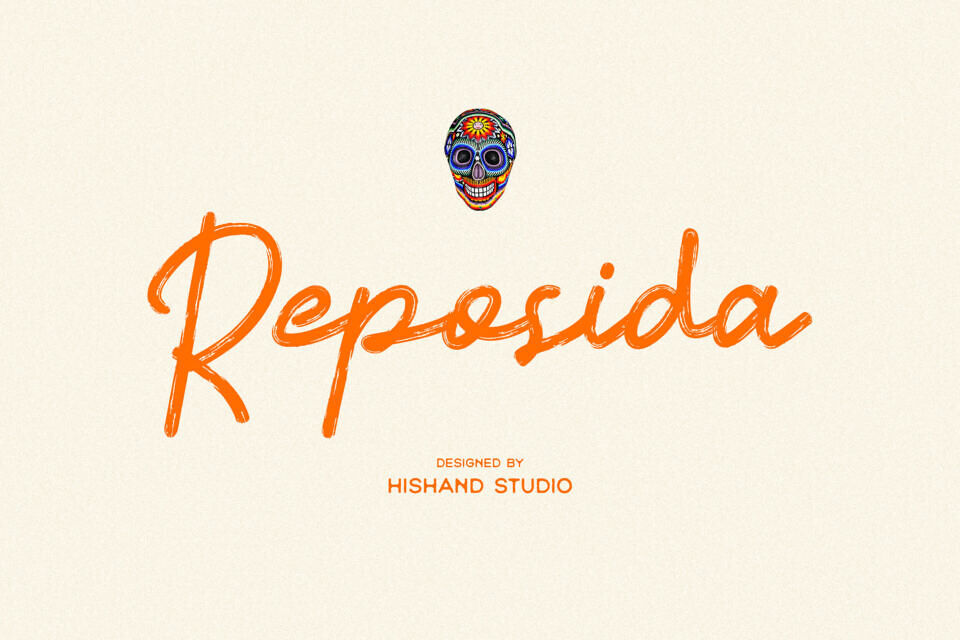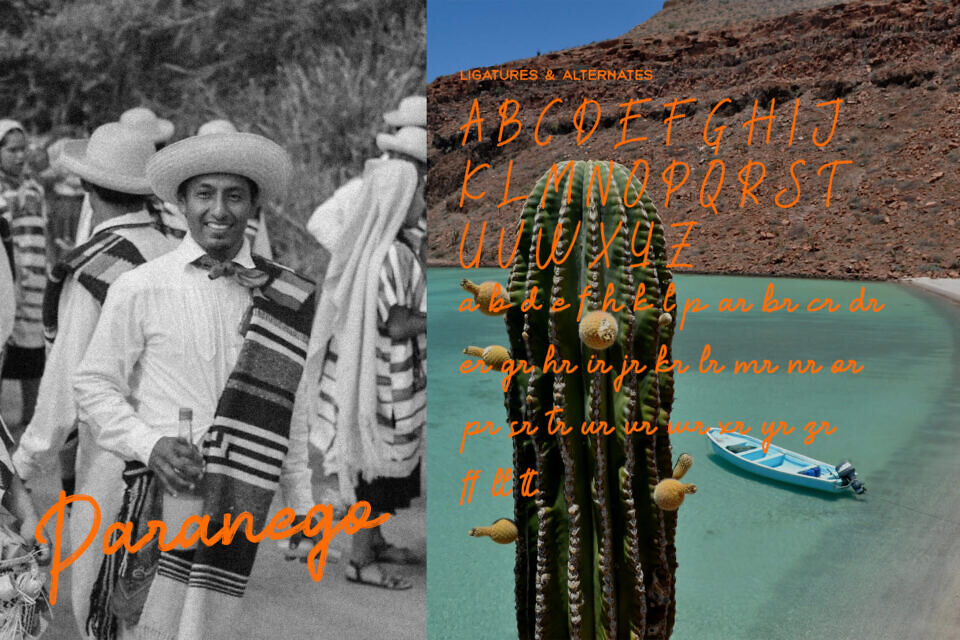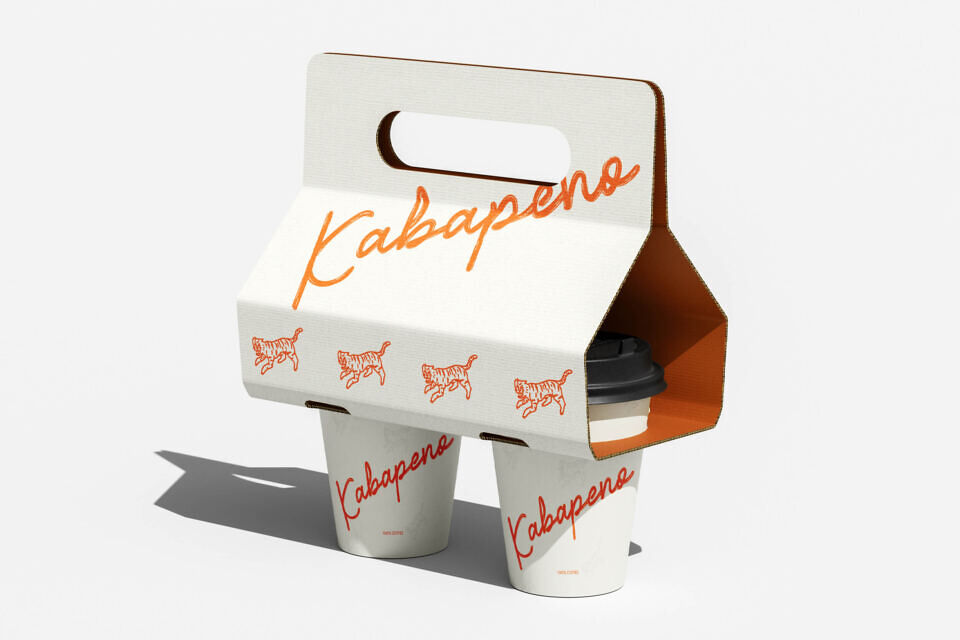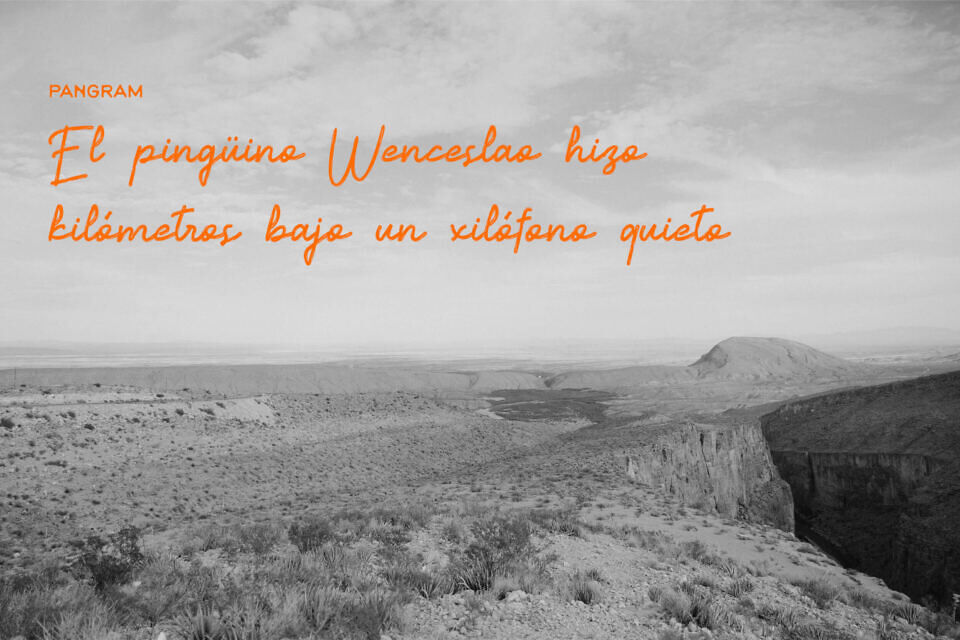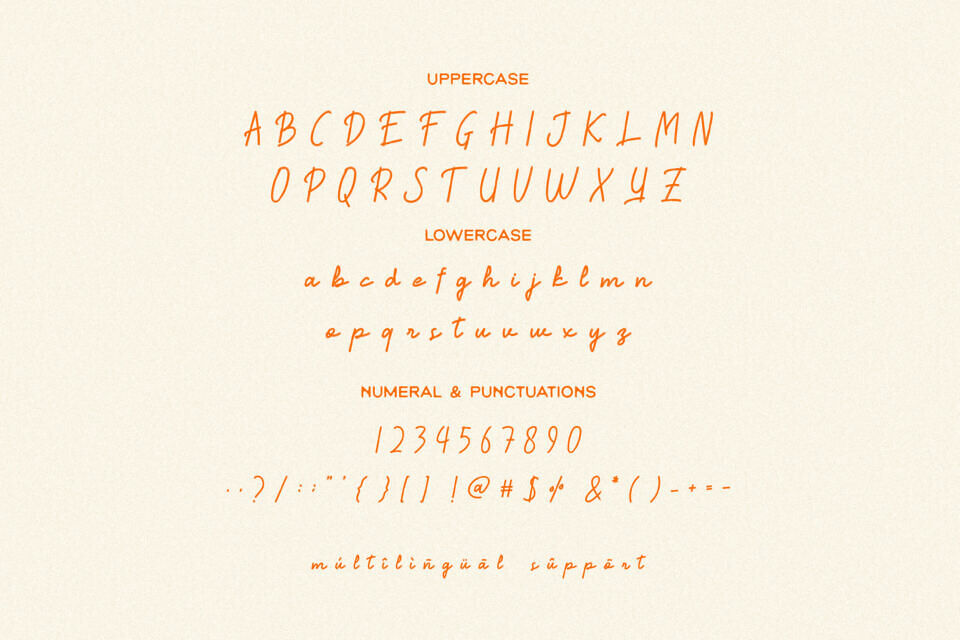
Reposida is a brush script built for warmth and character. Every stroke carries the loose, confident energy of real brush lettering, with slight pressure variations and organic curves that feel handmade rather than templated. The font includes alternates and ligatures, giving designers room to add flair where needed while keeping the base style approachable.